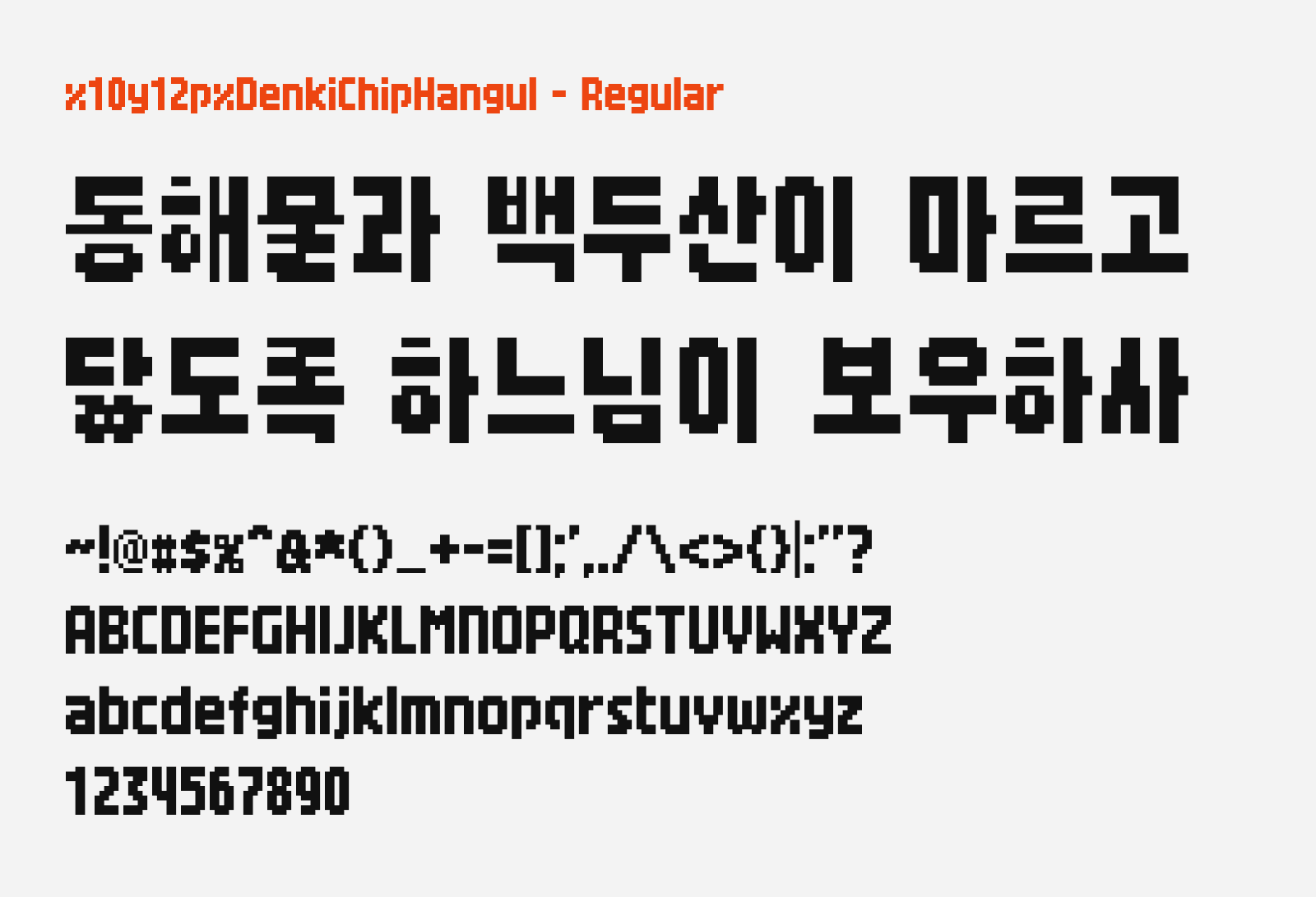
x10y12pxDenkiChipHangul
Preview of x10y12pxDenkiChipHangul, a pixel style free Korean font
x10y12pxDenkiChipHangul (전기칩 한글) is a bold 12px pixel font that extends the Japanese pixel typeface x8y12pxDenkiChip (でんきチップ) into a full Korean and Japanese bitmap font. The characters keep the same thick, blocky pixel construction as the source font, giving it that unmistakable retro-device feel: chunky strokes, tight pixel grid, and a bold weight that stays crisp and legible at tiny sizes.
The font covers 2,780 Hangul syllables from the Adobe-KR-9 supplement 0 set along with 640 Japanese kanji, making it usable for bilingual Korean/Japanese pixel-art projects, retro game UI, or any design that wants that chunky 8-bit console typography look. Other than that, it also supports basic Latin characters. This font is free to download and be used on personal and commercial use as it’s released under SIL Open Font License.